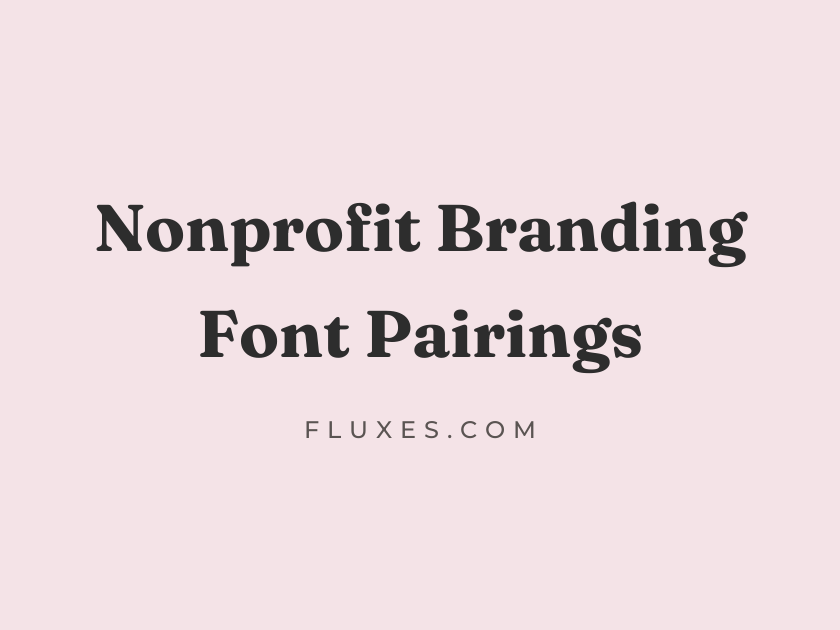
31 Best Font Pairings for Nonprofit Branding
Nonprofit branding has to do two things at once: earn trust and move people to act. That tension shapes which font pairings for nonprofit branding actually work, since a mission-driven organization needs headlines that feel warm and credible alongside body copy that reads easily on a donation page, an annual report, or a grant proposal. The combinations below draw on Google Fonts pairings that balance approachability with legibility, so a cause can look established without feeling cold or corporate.
1. Fraunces + Karla
Fraunces brings a soft, almost handwritten warmth to headlines thanks to its curved serifs, while Karla keeps paragraphs clean and unobtrusive. The contrast in texture, ornate versus plain, gives impact statements room to breathe without competing with the surrounding copy. Good for arts and community organizations that want personality without sacrificing readability.
2. Playfair Display + Lato
Playfair Display’s high-contrast strokes give campaign headlines editorial gravity, and Lato’s rounded, humanist letterforms soften that formality in body text. This pairing suits advocacy groups and humanitarian organizations that need to look serious in print without losing warmth online.
3. Libre Baskerville + Noto Sans
Libre Baskerville was designed specifically for screen reading, so it holds up well at heading size while still feeling like a trusted, book-like serif. Noto Sans matches its measured proportions with a body face built for long-form clarity, making this a dependable choice for annual reports and impact summaries.
4. Montserrat + Open Sans
Montserrat’s geometric confidence works well for calls to action, and Open Sans is one of the most tested typefaces for on-screen legibility, which matters on donation forms and volunteer sign-up pages. Both share generous x-heights, so the transition from headline to paragraph feels seamless rather than jarring.
5. Lora + Nunito Sans
Lora’s slightly calligraphic curves give headlines a grounded, humane quality, while Nunito Sans offers a friendly, rounded body face that keeps things approachable. This combination reads as sincere rather than institutional, a good fit for food banks, health clinics, and family services.
6. Merriweather + Work Sans
Merriweather was built for readability at a distance, giving it enough weight to anchor a homepage headline, and Work Sans carries that same practical, no-frills sensibility into paragraphs. The pairing feels reliable and unpretentious, which suits organizations focused on direct service work.
7. DM Serif Display + DM Sans
Because DM Serif Display and DM Sans were designed as a coordinated superfamily, they share proportions and rhythm even though one is a serif and the other a sans. That built-in harmony makes the pairing especially safe for organizations that want a cohesive look across print and digital without much guesswork.
8. Bitter + Mulish
Bitter’s slab serifs give headlines a sturdy, dependable presence, and Mulish’s restrained, low-contrast letterforms keep body text unobtrusive beside it. The combination suits legal aid groups and civic organizations that want to project stability.
9. Cormorant Garamond + Archivo
Cormorant Garamond’s delicate, high-contrast forms lend a heritage feel appropriate for cultural and historical nonprofits, while Archivo’s straightforward grotesque shapes ground the page so the elegance does not tip into fragility. This pairing works well for museums, libraries, and preservation trusts.
10. Space Grotesk + Noto Serif
Reserve display or slab serifs for short headlines and campaign titles rather than paragraphs, since their character works best in small doses.
Check that both fonts support the languages and diacritics your community actually uses, especially for international or multilingual organizations.
When in doubt, choose pairings with shared x-heights and similar stroke weights; that structural harmony reads as trustworthy even before anyone reads a single word.